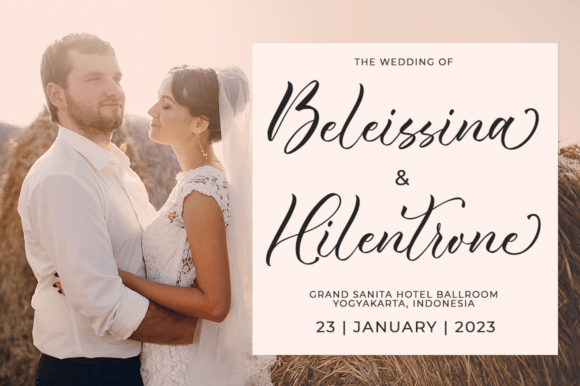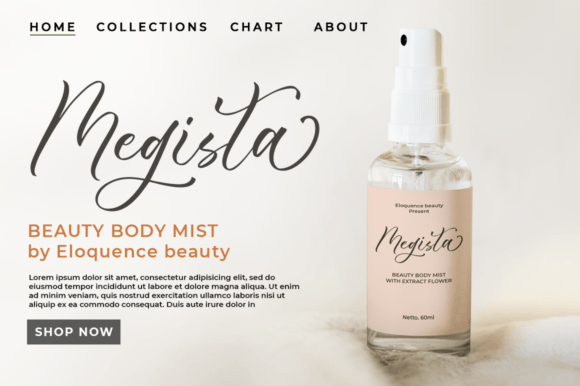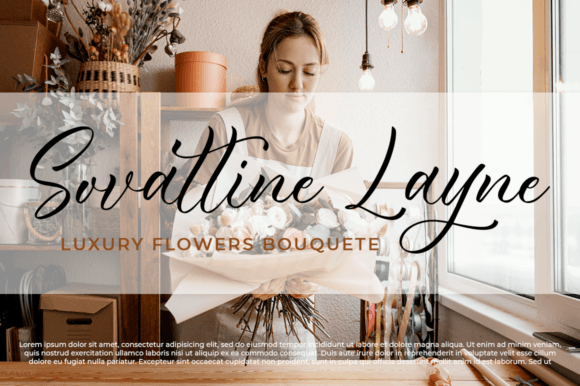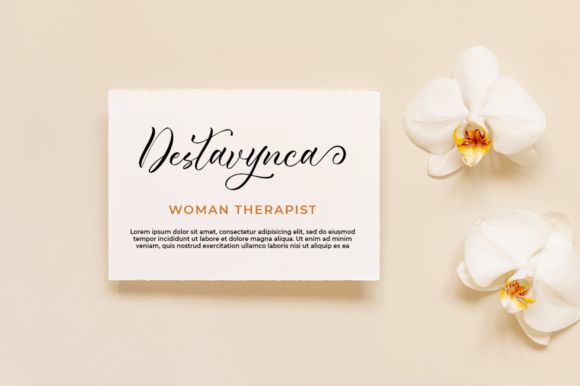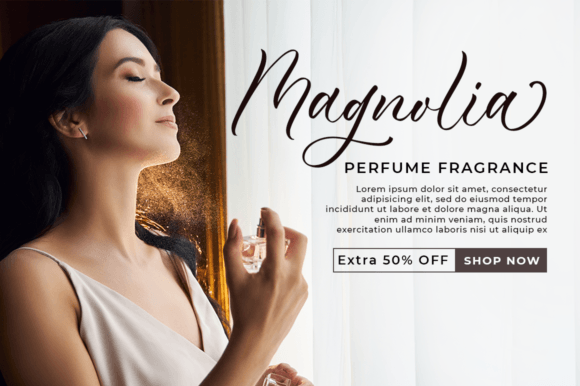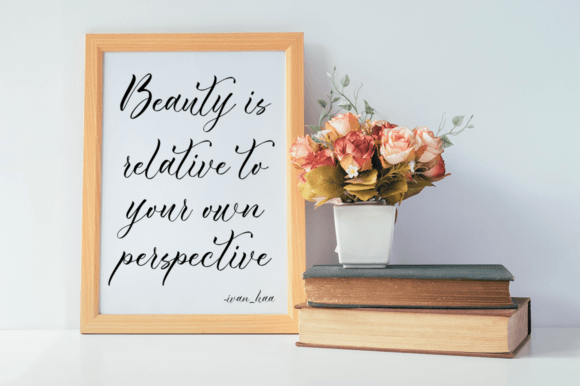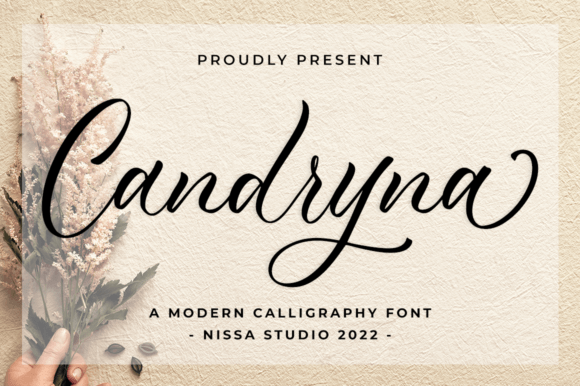
Candryna Font: Elevate Your Designs with Elegance and Sophistication
In the world of typography, a font can make or break a design. For those seeking an elegant and distinctive touch, Candryna Font is an exceptional choice. This beautiful handwritten font is perfect for designers and crafters looking to add a touch of sophistication to their projects. Whether you’re working on wedding invitations, thank you cards, quotes, greeting cards, logos, or business cards, Candryna Font is sure to impress.
The Beauty of Candryna Font
Candryna Font is an elegant handwritten font that exudes luxury and refinement. Its gorgeous and distinct style makes it perfect for designs that require a customized touch. The font’s flowing lines and delicate curves create a sense of movement and fluidity, adding a touch of whimsy to any design. With Candryna Font, you can create stunning visual content that stands out from the crowd.
Candryna Font is incredibly versatile and can be used for a wide range of design projects. Here are some ideas to get you started:
- Wedding Invitations: Add a touch of romance and elegance to your wedding invitations with Candryna Font. Its beautiful script style is perfect for formal and informal wedding designs.
- Thank You Cards: Express your gratitude in style with Candryna Font. The font’s delicate curves and flowing lines make it perfect for creating heartfelt thank you cards.
- Quotes: Add a touch of sophistication to your quotes with Candryna Font. The font’s elegant style makes it perfect for creating visually stunning quote designs.
- Greeting Cards: Create beautiful greeting cards for special occasions such as birthdays, anniversaries, and holidays with Candryna Font.
- Logos: Use Candryna Font to create a unique and memorable logo for your business or brand.
- Business Cards: Add a touch of elegance to your business cards with Candryna Font. The font’s professional style makes it perfect for creating business cards that make a lasting impression.
Candryna Font is PUA (Private Use Area) encoded, which means you can access all of the glyphs and swashes with ease. This feature makes it easy to customize your designs and add a personal touch. With Candryna Font, you can:
- Access a wide range of glyphs and swashes to enhance your designs.
- Easily customize your text to create a unique and personalized look.
- Save time and effort with easy access to all the font’s features.
Why Choose Candryna Font?
With so many fonts available, why choose Candryna Font? Here are just a few reasons:
- Elegant and Distinctive: Candryna Font is an elegant and distinctive font that adds a touch of sophistication to any design.
- Versatile: The font is incredibly versatile and can be used for a wide range of design projects.
- PUA Encoded: Candryna Font is PUA encoded, making it easy to access all of the glyphs and swashes.
- High-Quality: The font is of high quality, ensuring that your designs look professional and polished.